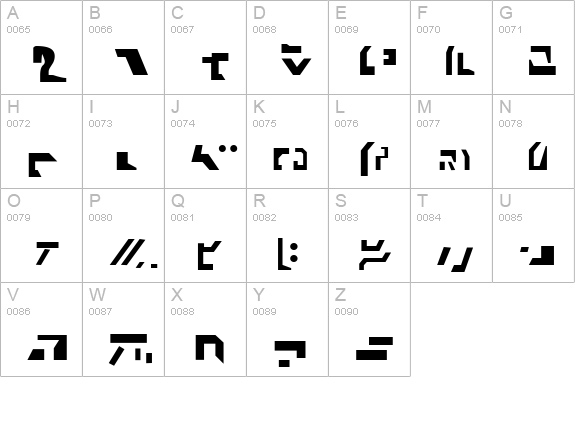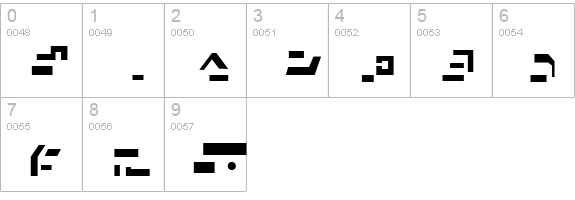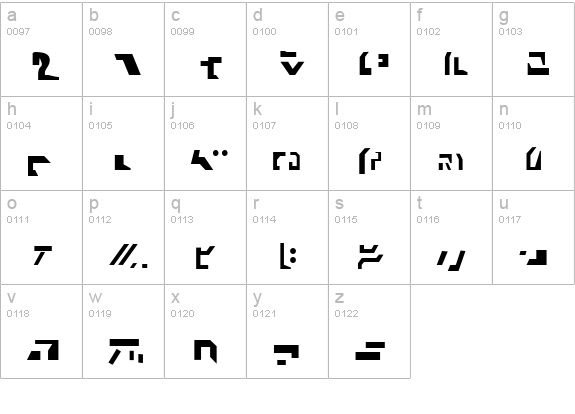
Ancient Autobot Font Details
The Ancient Autobot font is a captivating and mysterious typeface inspired by ancient robotic symbols. Its intricate design and unique glyphs exude a sense of power and antiquity, making it perfect for projects that require a touch of the ancient and futuristic combined. This font is a blend of tradition and innovation, making it ideal for a wide range of creative applications. What makes the Ancient Autobot font even more appealing is that it is freely available to download at FontsMarket.com. You can easily access this impressive font and enhance your designs with its striking appearance. Embrace the mystique of the Ancient Autobot font and add a touch of ancient wisdom to your projects today.